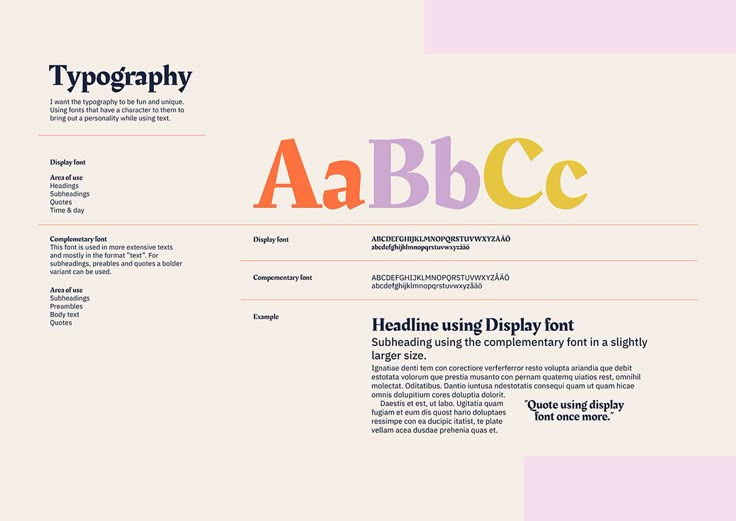
The hierarchy of typography is a graphic design visual principle and a fundamental concept that all types of designers should know about. It’s essentially a strategy of font arrangement, ensuring convenience of the information transfer process. Without a hierarchy, you create the “text wall” effect that makes reading so difficult.
Key Takeaways:
- Typographic hierarchy ensures that the text is both visually appealing and legible.
- Each typographic element is continuous to make each section stand out from the others.
- By highlighting important information, typography creates a unique and distinct text-based project.
What Is Hierarchy in Typography?
Typography hierarchy refers to text-based mediums with visual cues that establish an order of importance within the data. From websites and mobile apps to newspapers and corporate reports, typography hierarchy involves different sections to enhance both the usability and aesthetics of the design simultaneously.
Why is the Hierarchy of Typography Important?
Here’s why the typography hierarchy is special:
- Improve Readability: Typographic hierarchy boosts readability and understanding by guiding viewers’ attention through the layout in a logical order.
- Enhance User Experience: Typographic hierarchy plays a crucial role in user guidance through a seamless experience. Simply put, it shows the reader which points to focus on and which just support the main pieces of information at a glance.
- Build Visual Interest: Beyond functionality, the typographic hierarchy elevates the visual appeal and impact of the entire design.
Hierarchy of Typography Levels
Every design should include the basic classification of typography hierarchy, as follows.
1. Heading
A heading is a short statement that describes the next section of your content. Ideally, this element is visually appealing with the large and bold font specification.
2. Subheading
It’s the heading’s mini-headline. Subheadings should be more concise than the heading and quite bigger than the body text.
3. Body Text
A body text is the last level of the typographic hierarchy. It covers the main text of the whole context. Here, the use of a clean and easy-to-read typeface is a must to improve user experience.
Hierarchy of Typography Elements
Typographic hierarchy is not only about displaying fonts; it also involves manipulating various typographic elements to create importance levels. These include:
1. Style
Pick typefaces that best fit your design mood and legibility. Use font styles strategically within a typography hierarchy, such as bold for emphasis or italics for subtle distinction, to enhance clarity without overwhelming the design.
2. Size
Font size matters; it contributes to directing the reader’s eyes. Choose the bigger font size for headlines and take the smaller one for body copy or meta-information purposes.
3. Capitalization
Leveraging all-caps for a header or subheader is the easiest way to differentiate each section.
4. Position and Alignment
This hierarchy of typography elements is essential to embody a visually balanced and cohesive layout. For instance, using centered headlines while keeping consistent margins creates a clear focal point and structured layout.
5. Weight
Weight in typographic hierarchy describes how a font’s lightness or heaviness affects readability. Heavier weights make text stand out, while lighter ones make it recede.
6. Color
Text color selection is a must to trigger the readers’ emotional responses. Using contrasting colors to create a more distinct hierarchy is a fantastic option.
7. Spacing
Adjusting the proper typography spacing between each line or letter indicates clarity, ensuring the content is more accessible to readers. More white space highlights the important notes, while the tighter line spacing makes text denser.
Hierarchy Typography Examples
To get a better understanding of hierarchy typography, here are two examples to follow.
1. Contrasting Color and Size
As you can see, this illustration embodies the contrast element between color and size, creating a dynamic visual hierarchy.
2. Heading Between Body Text and Subheading
Why not put down the heading between the subheading and body text only for your design? You may think it’s quirky, but it’s best for presenting a high readability of key points.
Let’s Use the Hierarchy of Typography for Your Design!